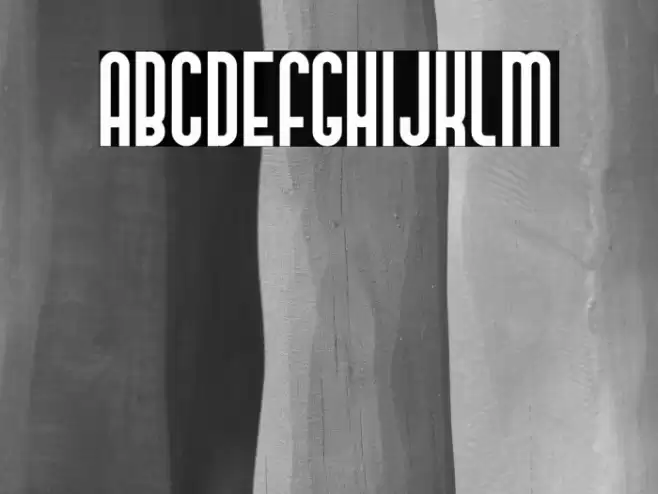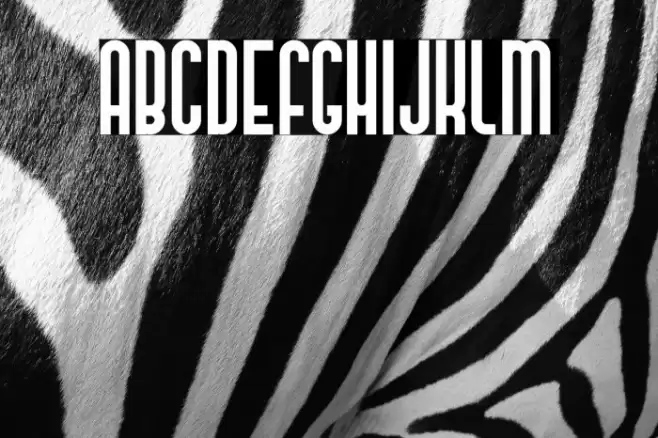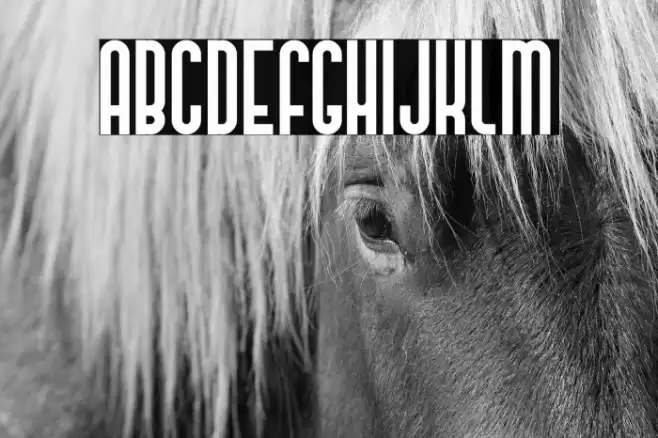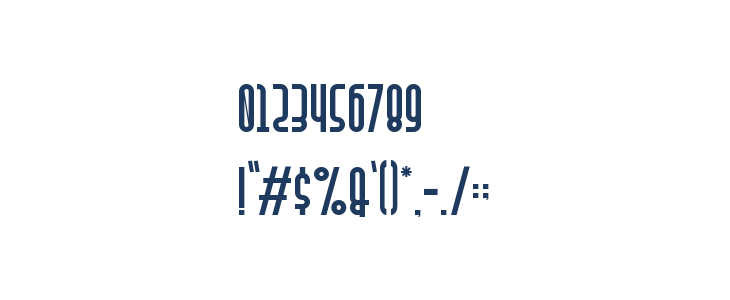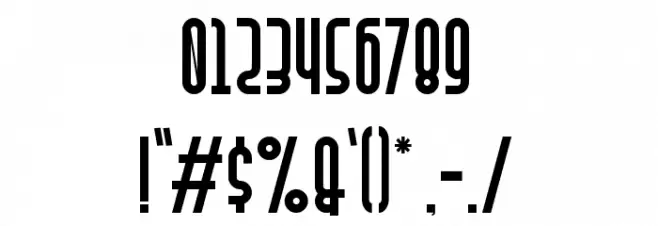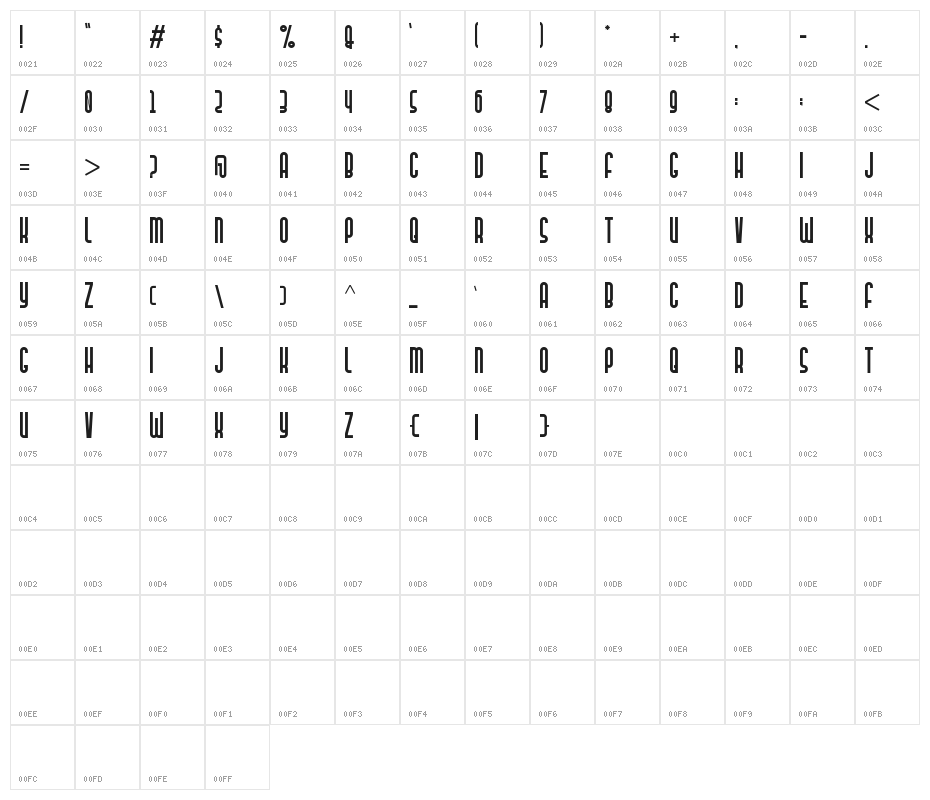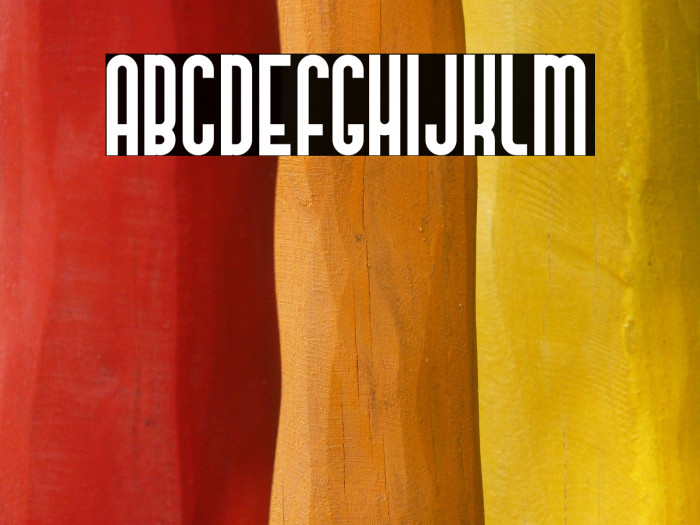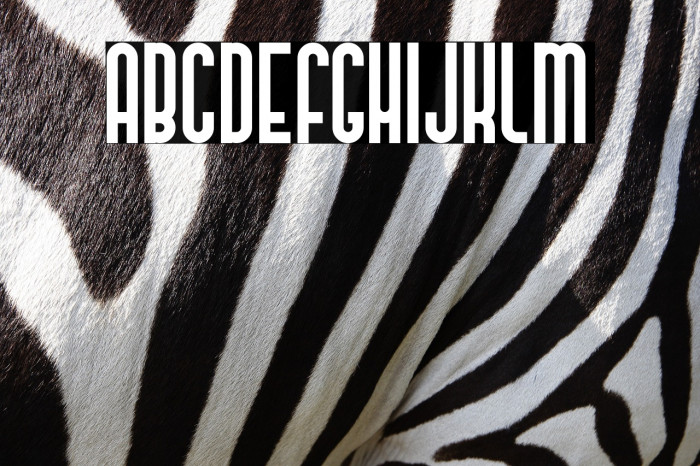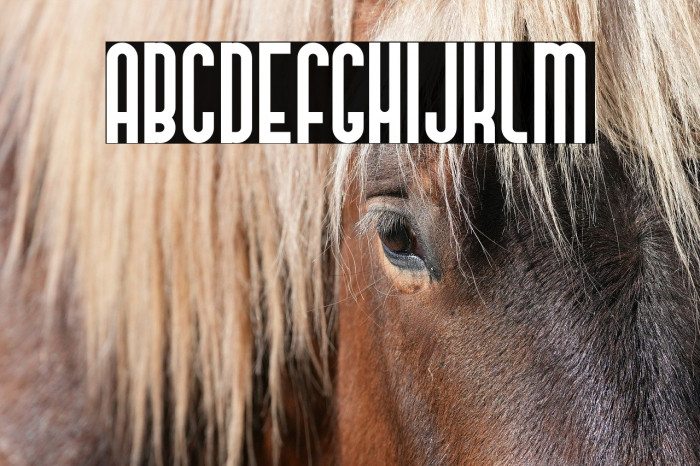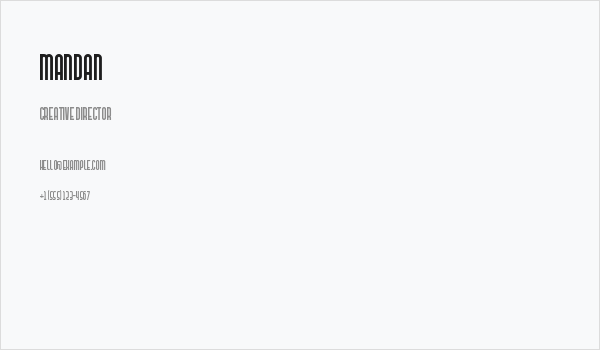
Mandan Font
Mandan Description
This font features a bold and condensed style with a modern and geometric appearance. The uppercase and lowercase letters are designed with uniform stroke widths, giving it a clean and structured look. The characters are tightly spaced, enhancing its compact and impactful presence. The numerals and special characters maintain the same boldness, ensuring consistency across all glyphs. This font's design is suitable for making strong visual statements, with its high contrast and distinctive style.
A bold, condensed, and modern geometric font with tight spacing from Uncategorized fonts.
- Font: Mandan
- Proposed Projects: Ideal for headlines, posters, branding, and logo design where a strong and modern impact is desired.
- Character Spacing: Tight